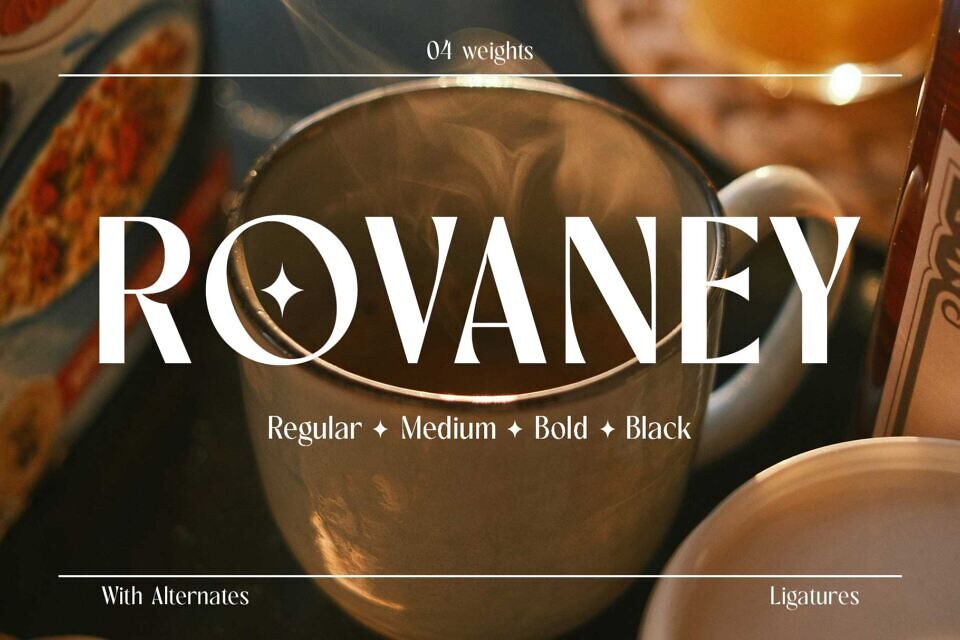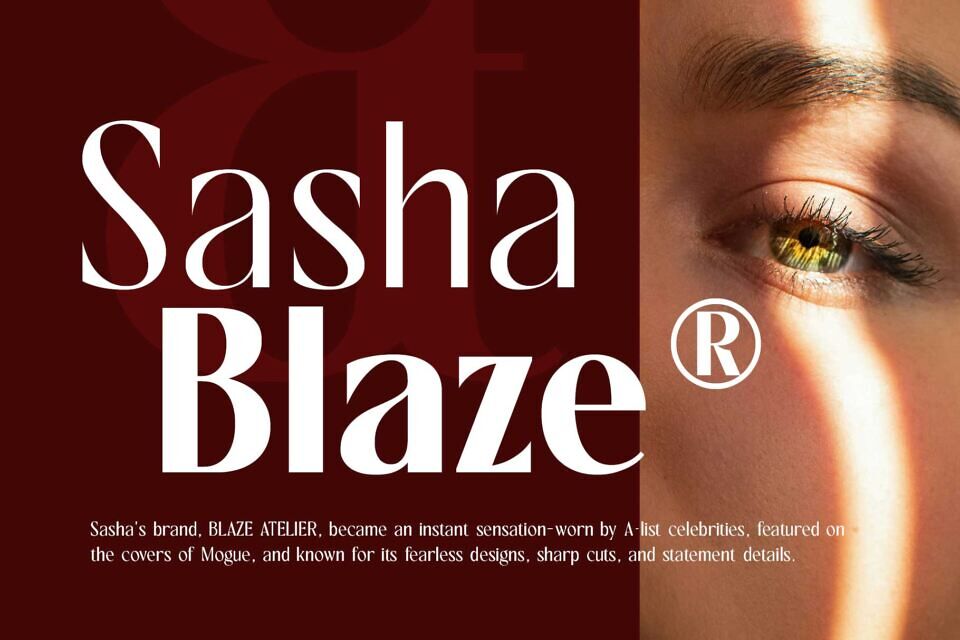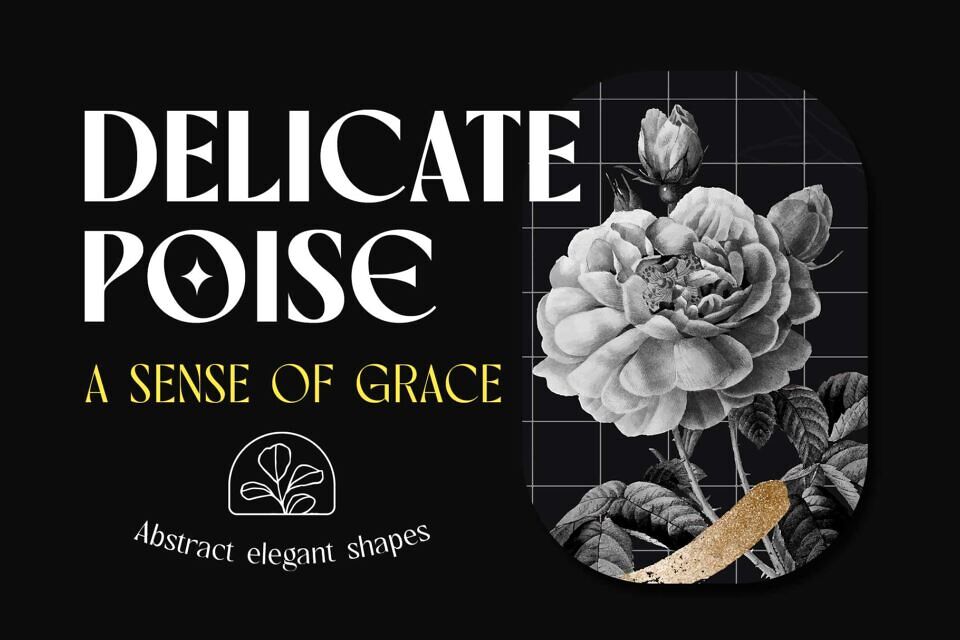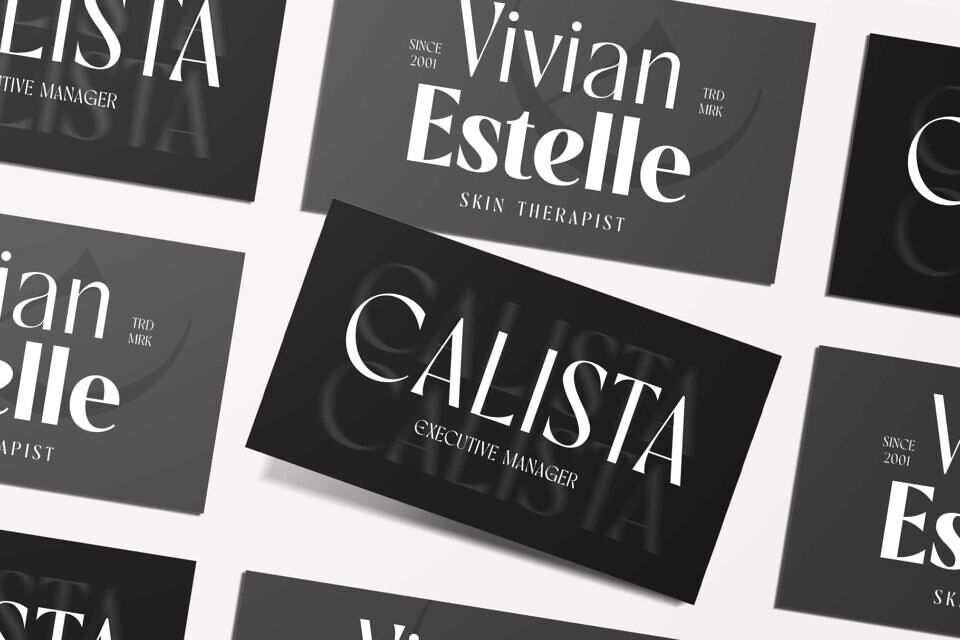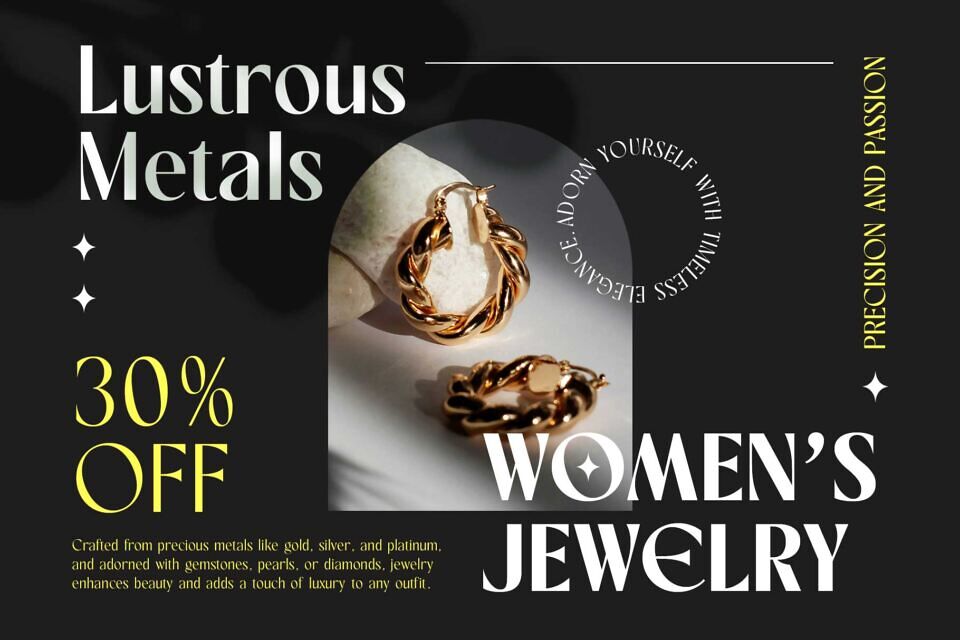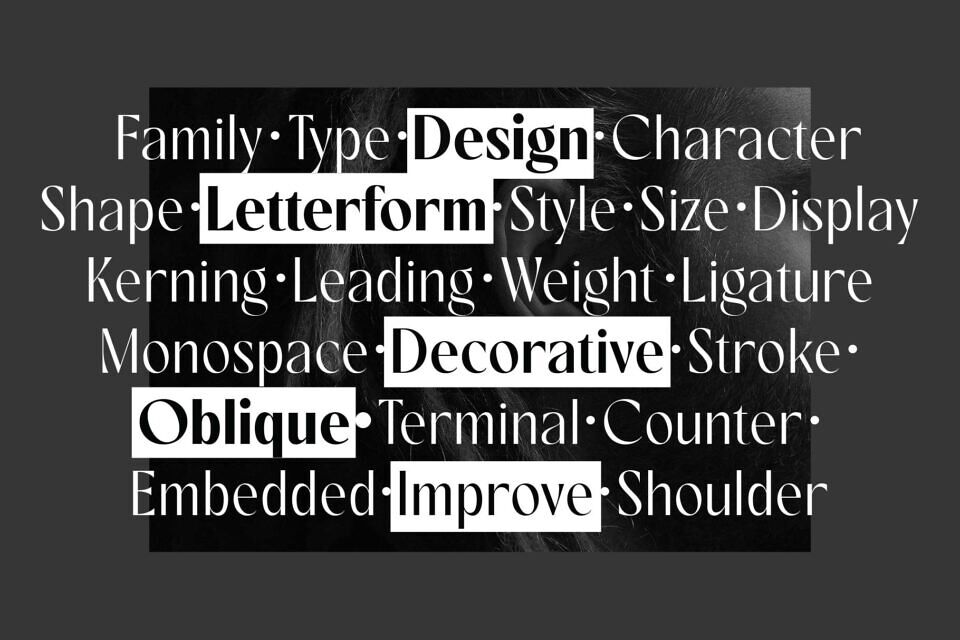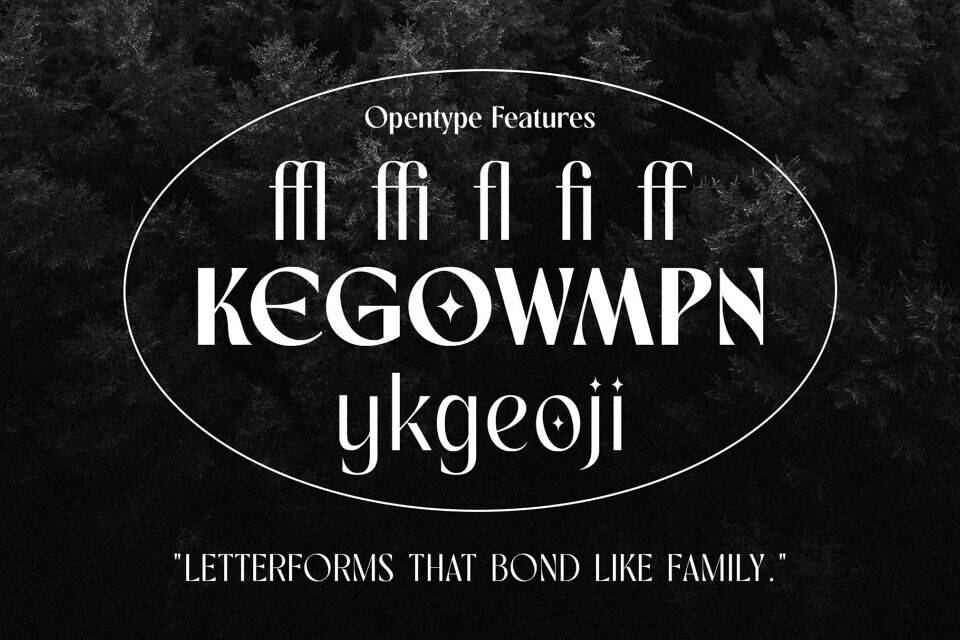
Rovaney is a modern display font available in four weights: Regular, Medium, Bold, and Black. It features a stylish design with elegant curves, serifs, and strokes, making it versatile for various designs.
Rovaney is the perfect choice for you if you’re looking for a unique typeface design. You can use this font for logos, branding, cards, weddings, editorials, magazines, labels, fashion, and more.